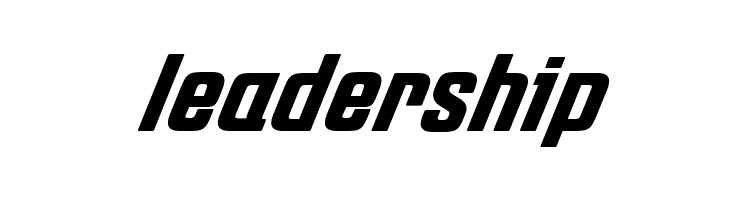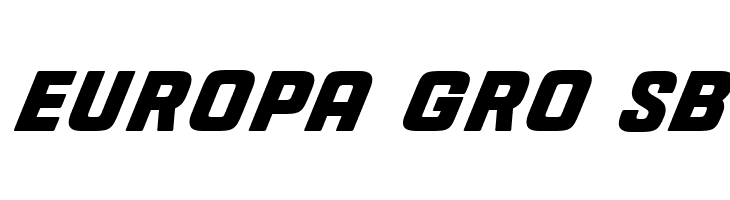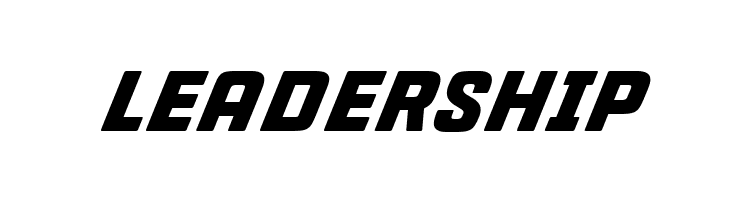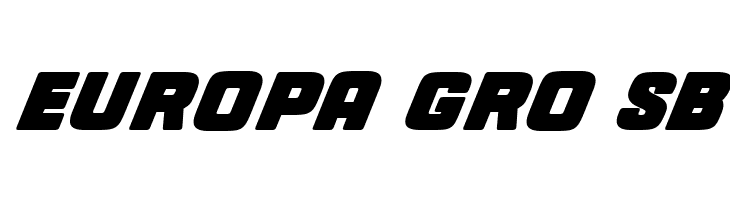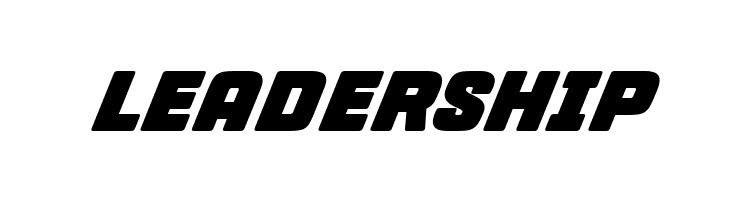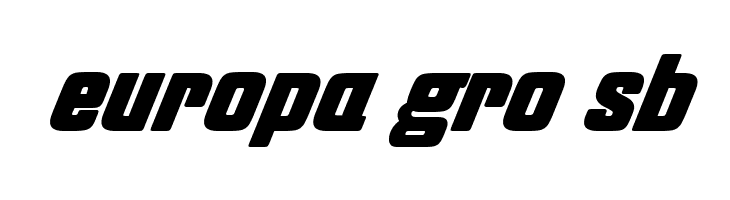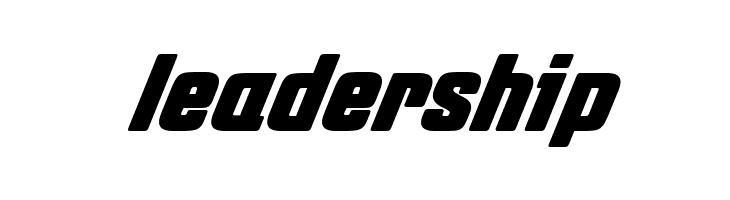
Font by defharo. For commercial use please contact the owner. ( Fastup Regular and Small Caps is available in two weights (Regular and Bold), geometric design fonts, with a rounded finish on the vertices that provides warmth, with short ascenders and descenders offers a more compact set of letters, the 22° inclination ) A bold, slanted font with a dynamic and energetic style. Download 1084 Downloads@WebFont
Font by defharo. For commercial use please contact the owner. ( Fastup Regular and Small Caps is available in two weights (Regular and Bold), geometric design fonts, with a rounded finish on the vertices that provides warmth, with short ascenders and descenders offers a more compact set of letters, the 22° inclination ) A bold, italicized font with a dynamic and sporty style. Download 866 Downloads@WebFont
Font by defharo. For commercial use please contact the owner. ( Fastup Regular and Small Caps is available in two weights (Regular and Bold), geometric design fonts, with a rounded finish on the vertices that provides warmth, with short ascenders and descenders offers a more compact set of letters, the 22° inclination ) A bold, slanted font with a dynamic and energetic style. Download 723 Downloads@WebFont
Font by defharo. For commercial use please contact the owner. ( Fastup Regular and Small Caps is available in two weights (Regular and Bold), geometric design fonts, with a rounded finish on the vertices that provides warmth, with short ascenders and descenders offers a more compact set of letters, the 22° inclination ) A bold, slanted font with thick strokes and a dynamic, energetic style. Download 851 Downloads@WebFont
( Fonts by www.asleycruz.com - Asley Cruz - Personal-use only. For commercial use please contact owner. ) A bold, modern sans-serif font with a slightly condensed width and clean lines. Download 365 Downloads@WebFont
( Fonts by www.asleycruz.com - Asley Cruz - Personal-use only. For commercial use please contact owner. ) A bold, modern italic typeface with a dynamic and professional appearance. Download 176 Downloads@WebFont
( Fonts by www.asleycruz.com - Asley Cruz - Personal-use only. For commercial use please contact owner. ) A bold, modern sans-serif font with geometric precision and excellent readability. Download 403 Downloads@WebFont
( Fonts by www.asleycruz.com - Asley Cruz - Personal-use only. For commercial use please contact owner. ) A bold, modern sans-serif font with excellent readability and uniform design. Download 365 Downloads@WebFont